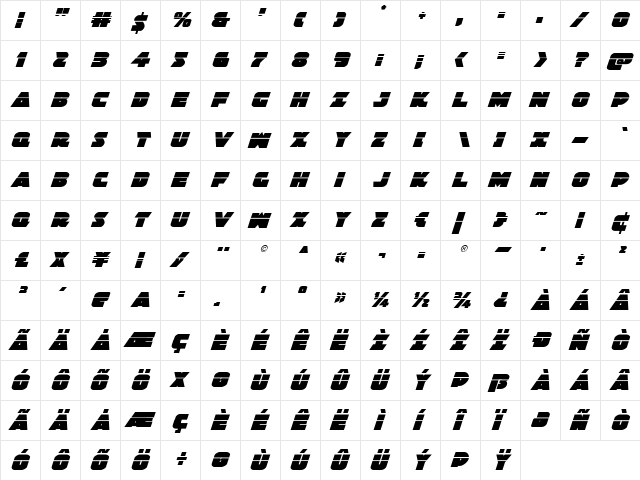
Jedi Special Forces Laser Italic Italic
Design Context for Jedi Special Forces Laser Italic Typeface
Jedi Special Forces Laser Italic brings high-energy athletic personality to the page — its confident, muscular forms are built for impact. Its italic angle brings a sense of urgency and motion to the letterforms.
A natural choice for gym brands, fantasy sports, jersey lettering, and action-driven headlines.
Pro Tip: Use Jedi Special Forces Laser Italic in all-caps headlines where its athletic energy can fully express itself. Pair with a solid, simple sans for supporting text.